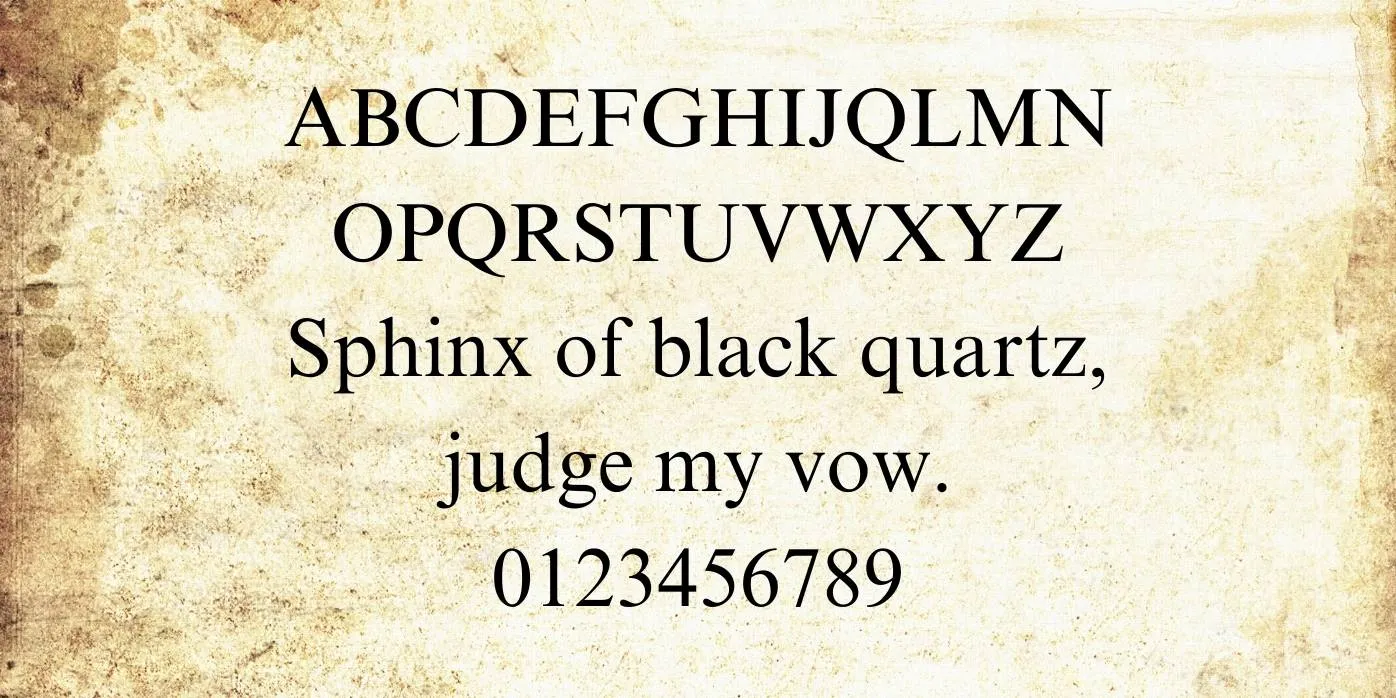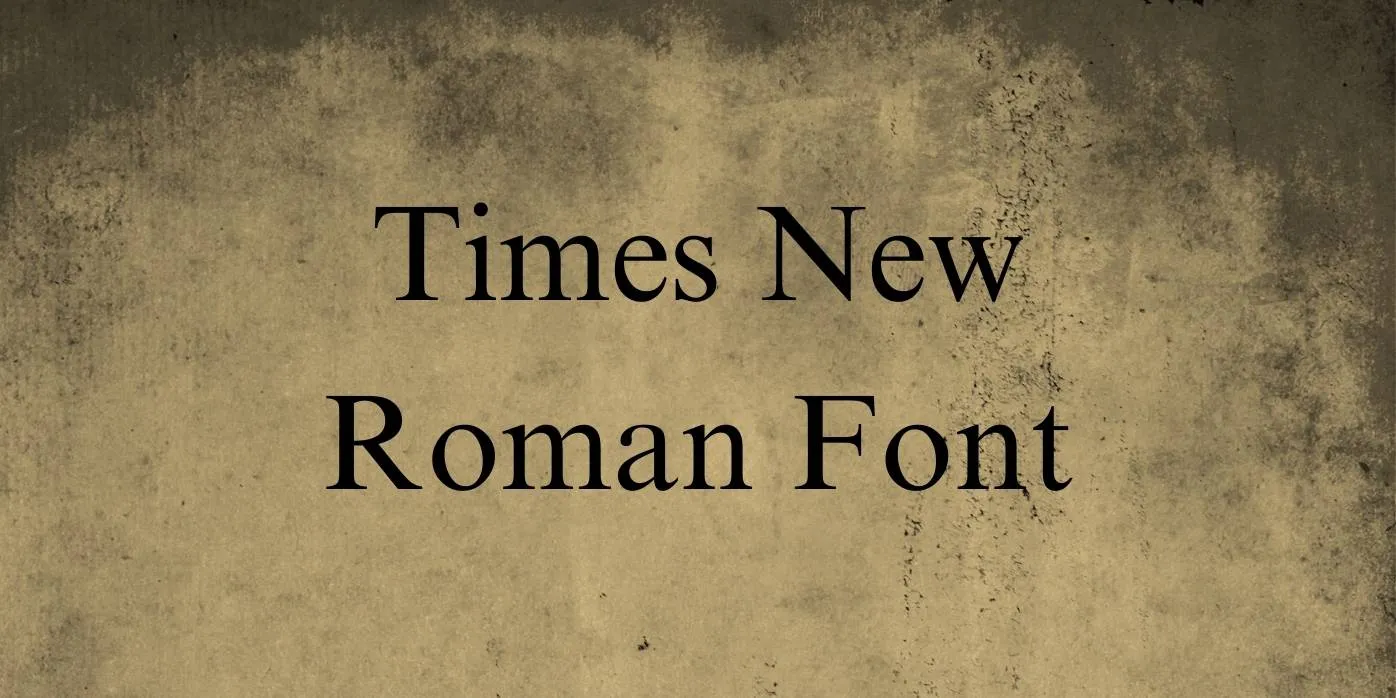
Times New Roman Font
Let’s introduce the most stylish and awesome font known as Times New Roman. This font belongs to the Serif font family. This stunning typeface was designed by Stanly Morison and ¬†Victor Lardent both are British designers. Both designers help each other in designing this typeface.
It is the topmost installed font on all desktop computers. The Times a popular newspaper makes famous this font that attracts the whole world towards this font. This unique font is mostly used for Words documents. This typeface is famous due to its Large X-height.
The famous magazine works it for 40 years. This font family is available in various styles, letters, and different unique characters. This font is used everywhere all over the world. Different fonts are available that are closest to this font family.
This typeface provides the best results for different projects and functions.